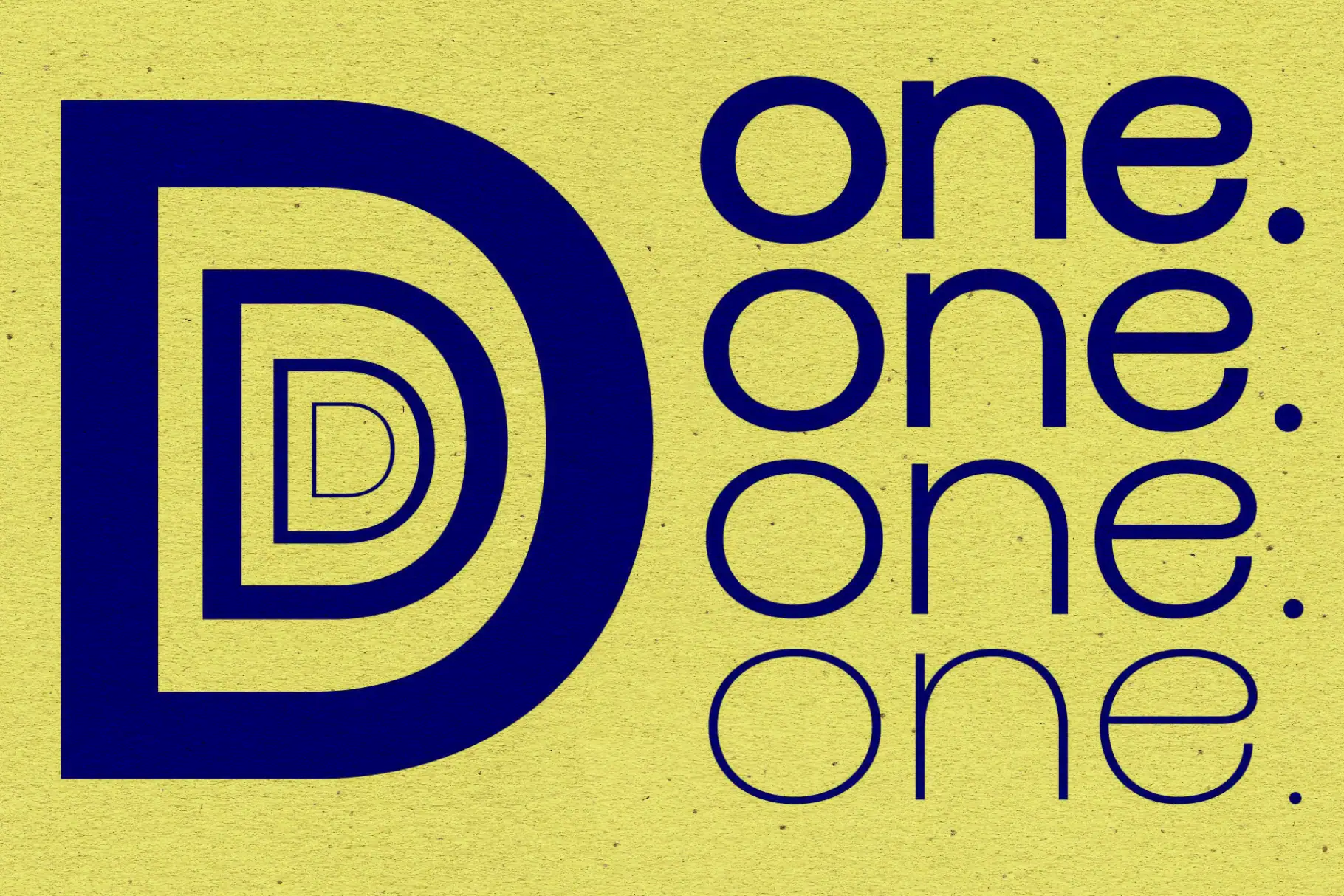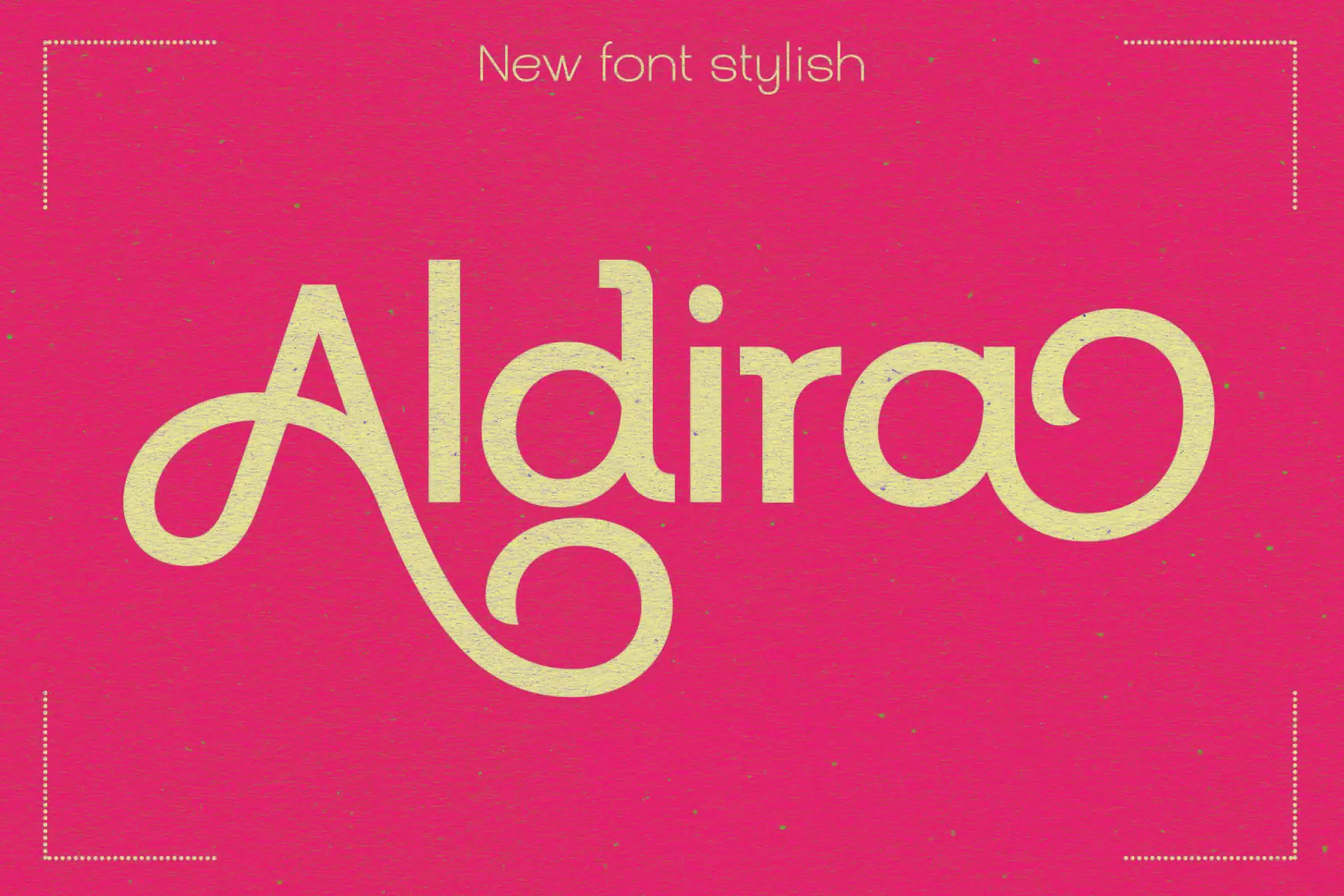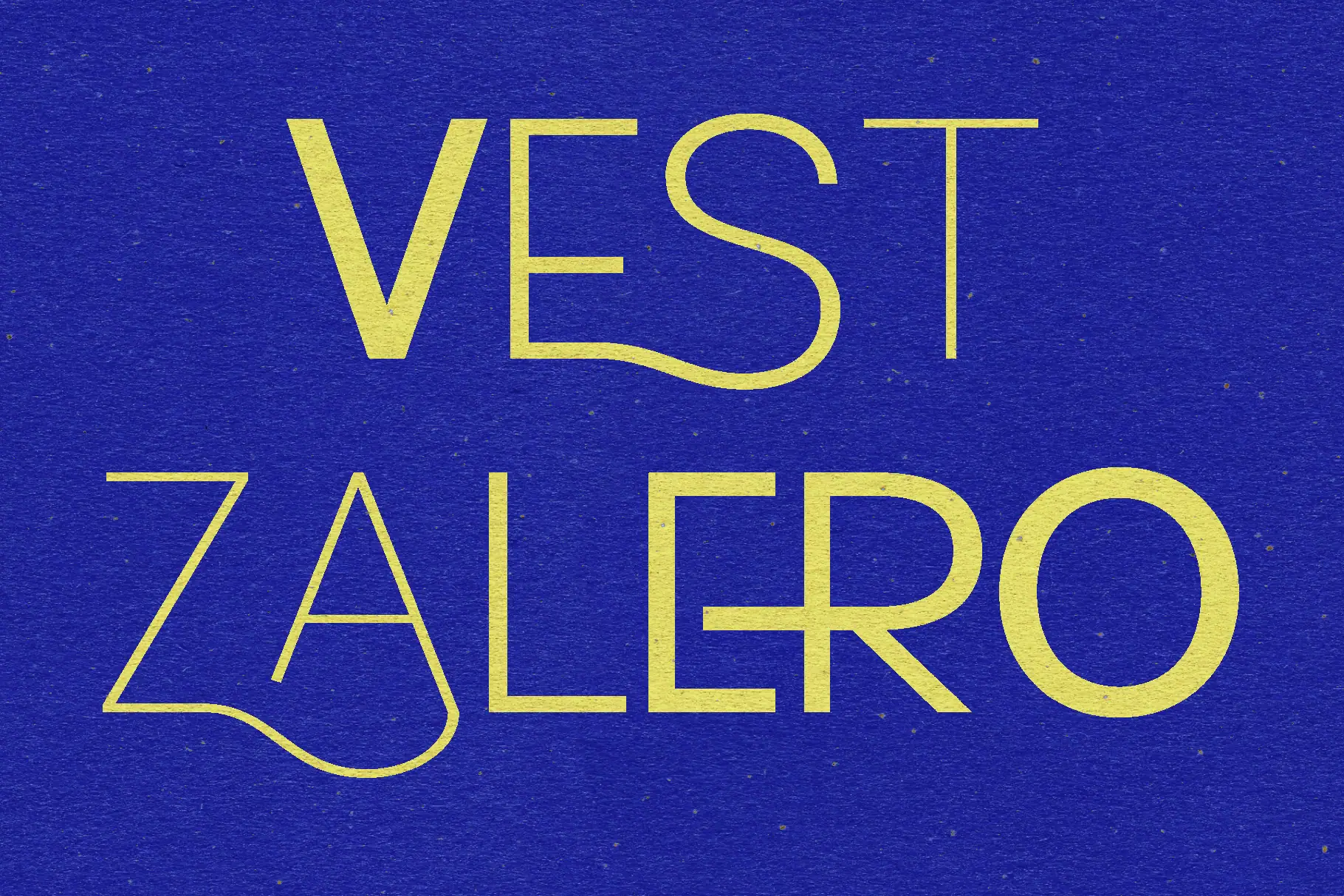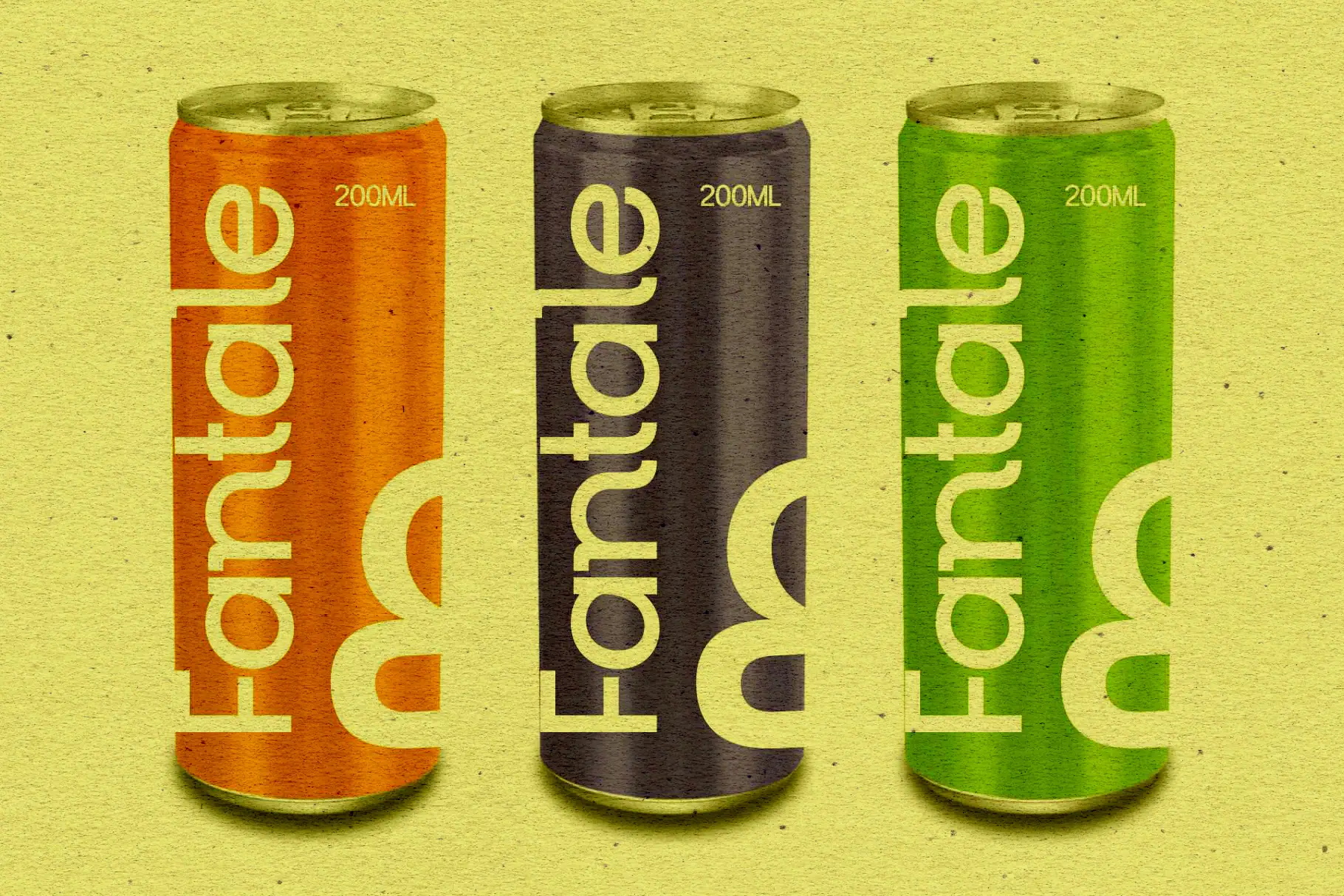
Invantion Sans
Invantion Sans, Geometry meeting the grace of a steady hand. Introducing Invantion, a modern geometric sans-serif typeface designed to bring a clean, stylish, and contemporary touch to every project. With smooth curves, balanced proportions, and a friendly personality, this font delivers exceptional readability while maintaining a unique visual character.
Invantion features a complete set of uppercase and lowercase letters, numerals, punctuation, multilingual support, and an extensive collection of custom ligatures. The standout ligature set — including combinations like KA, LQ, RA, ES, XA, ZQ, and more — adds an expressive, dynamic flair that makes your typography feel exclusive and memorable.
Designing a logo often starts with finding the right character to anchor the brand. For me, it was the ampersand in this set. It has this unusual, grounded weight that feels classic and futuristic all at once. The kerning is tight. It flows like a conversation between friends. You won’t find any generic curves here; every arc is a result of optical adjustment. It avoids the clinical feel of most neo-grotesques by embracing a bolder, geometric soul. The ‘Rg’ pairing shows off a terminal logic that keeps the text block looking sharp even at smaller sizes. It is simply a tool for better storytelling.